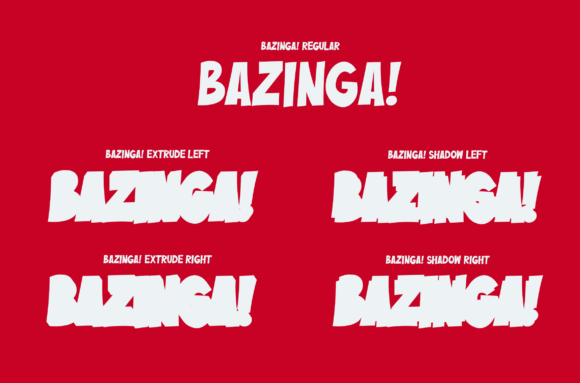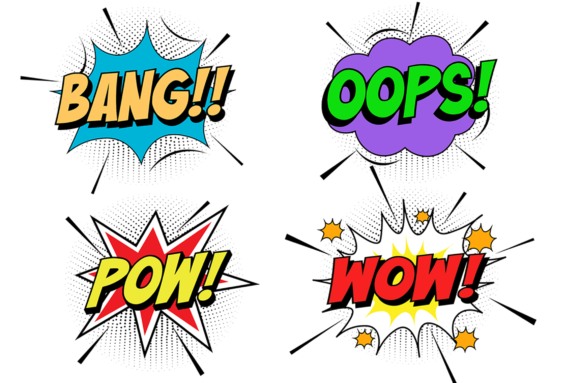
Bazinga! Font
Bazinga! is a fun and thick lettered display font, that can easily stand out. Whether you are using it for cartoon-related designs, children’s games, quotes, titles, brand names, book covers, posters, or just any creation that requires a touch of beauty, this font is a great choice.